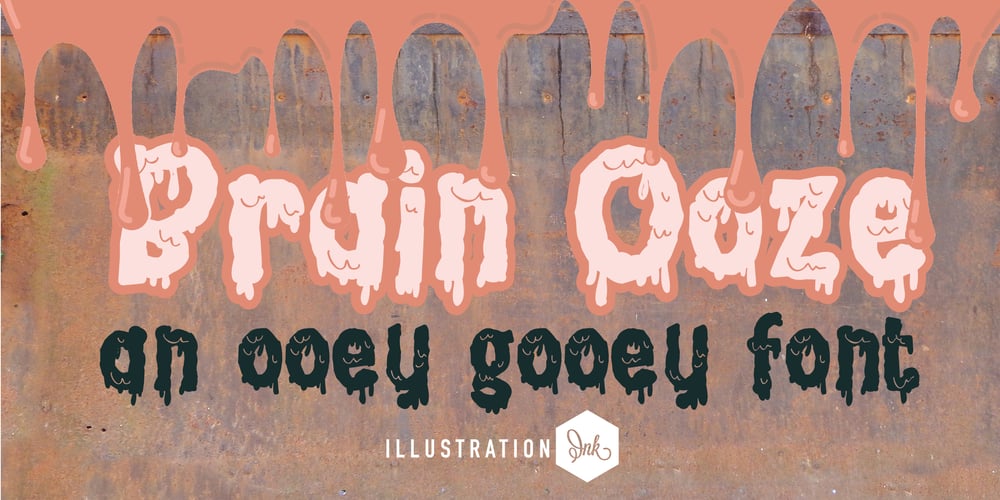
ZP Brain Ooze Font Family was designed by Illustration Ink and published by Illustration Ink. ZP Brain Ooze contains 1 styles and family package options. This ooey, gooey, font looks like dripping brains for a perfectly creepy font.